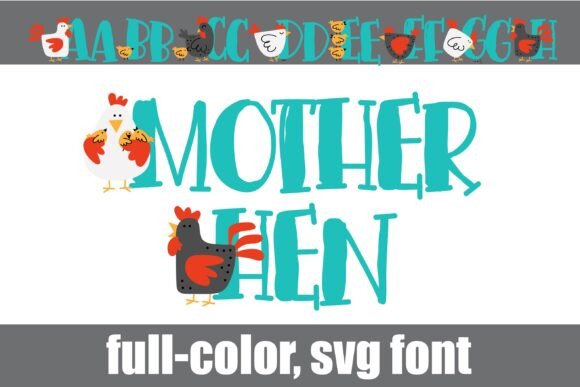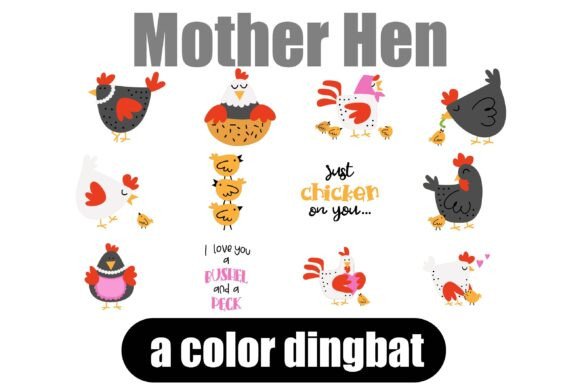
Introduction to Mother Hen Font
Have you ever stared at a blank canvas, eager to bring your creative project to life, but lacking the perfect design resource? As a designer, I’m sure you can relate to that moment of uncertainty. It’s when inspiration strikes, and you’re on the hunt for a unique touch to make your project stand out. That’s where the Mother Hen Font comes in – a vibrant and playful bundle that’s about to become your new best friend.
With its full-color font, alt case, and dingbats, this design powerhouse is sure to elevate your creative endeavors. Whether you’re working on a high-quality design project or simply need a fun way to add a transparent background to your social media graphics, the Mother Hen Font has got you covered. And the best part? It’s available for free download, making it an instant addition to your design arsenal.
Key Features of Mother Hen Font
- High-quality design resource with a unique, whimsical style perfect for creative projects.
- Features a transparent background, allowing for easy integration into various design elements and backgrounds.
- High-resolution design with a resolution of 300 DPI, ensuring crisp and clear typography in print and digital applications.
- Perfect for designers looking for a fun and quirky font to add a personal touch to their creative project.
- Can be used for a variety of design elements, including logos, typography, and graphics, making it a versatile design resource.
Honest Review: Mother Hen Font
I recently came across the Mother Hen Font and I have to say, it’s a great addition to any designer’s toolkit. This font is perfect for creating a warm and inviting atmosphere in your design project.
- High-quality design with a unique, hand-drawn feel ✨
- Transparent background makes it easy to customize and pair with other design elements ✨
- Perfect for creative projects that require a personal touch ✨
- ⚠️ Not ideal for projects that require a bold or modern font
Overall, I’m impressed with the Mother Hen Font. While it may not be perfect for every project, it’s a great addition to any design resource library. Its unique design and free download option make it a valuable asset for designers of all levels.
The Mother Hen Font is ideal for a variety of creative projects, including wedding invitations, baby shower decorations, and children’s party materials. Its playful and whimsical design makes it a popular choice for designers and artists looking to add a touch of personality to their work.